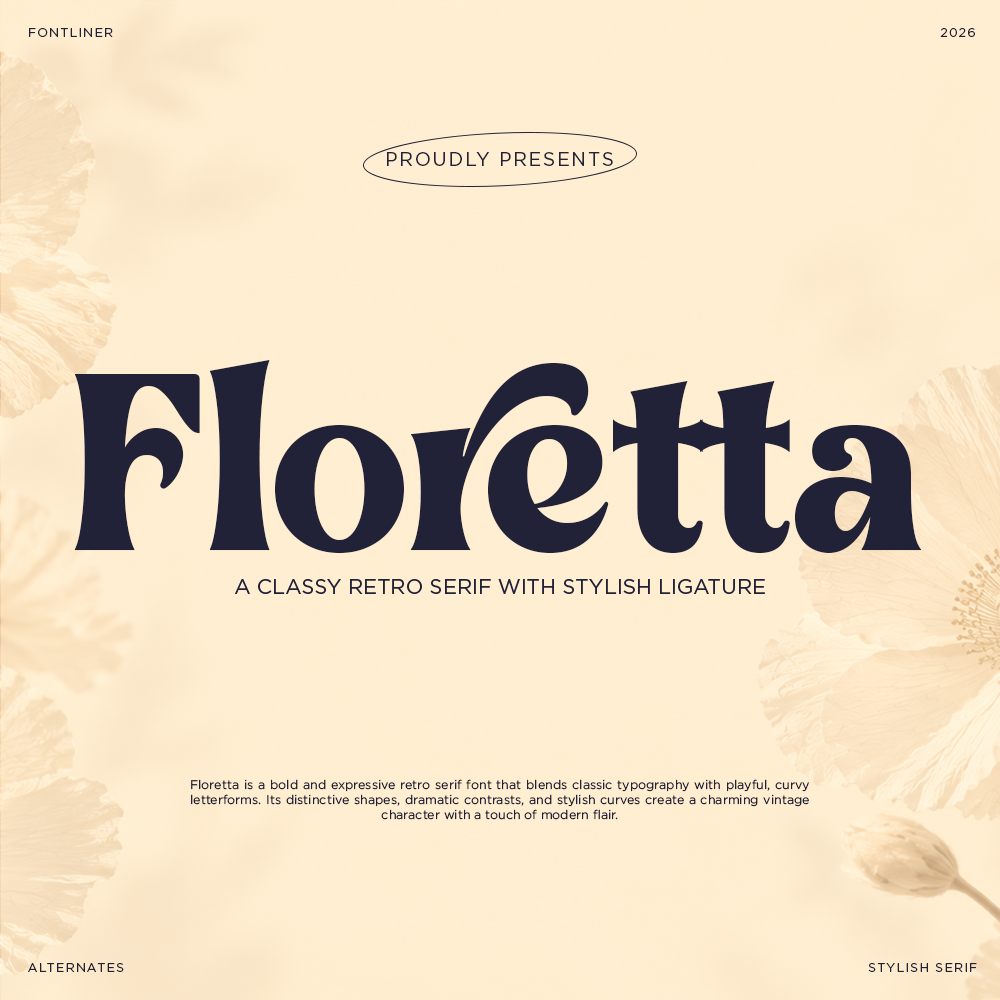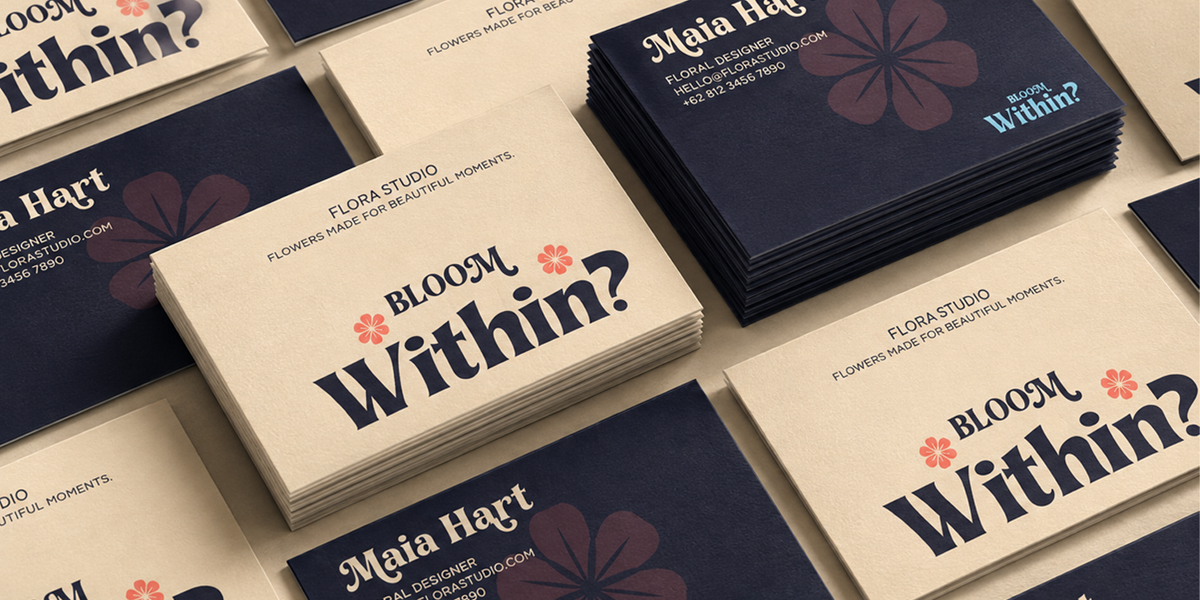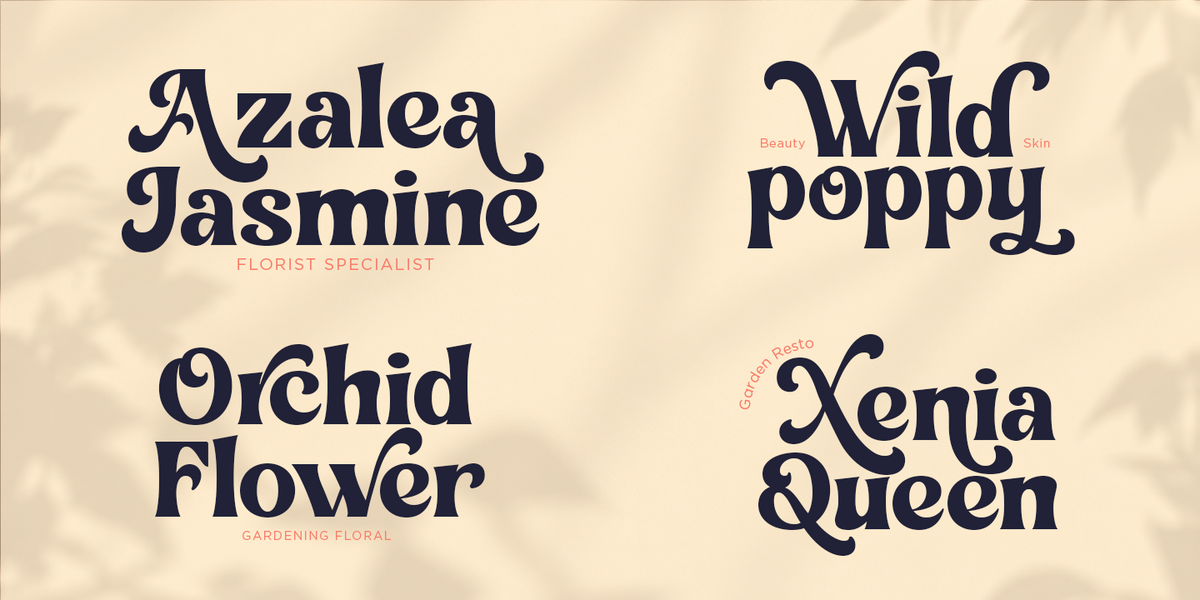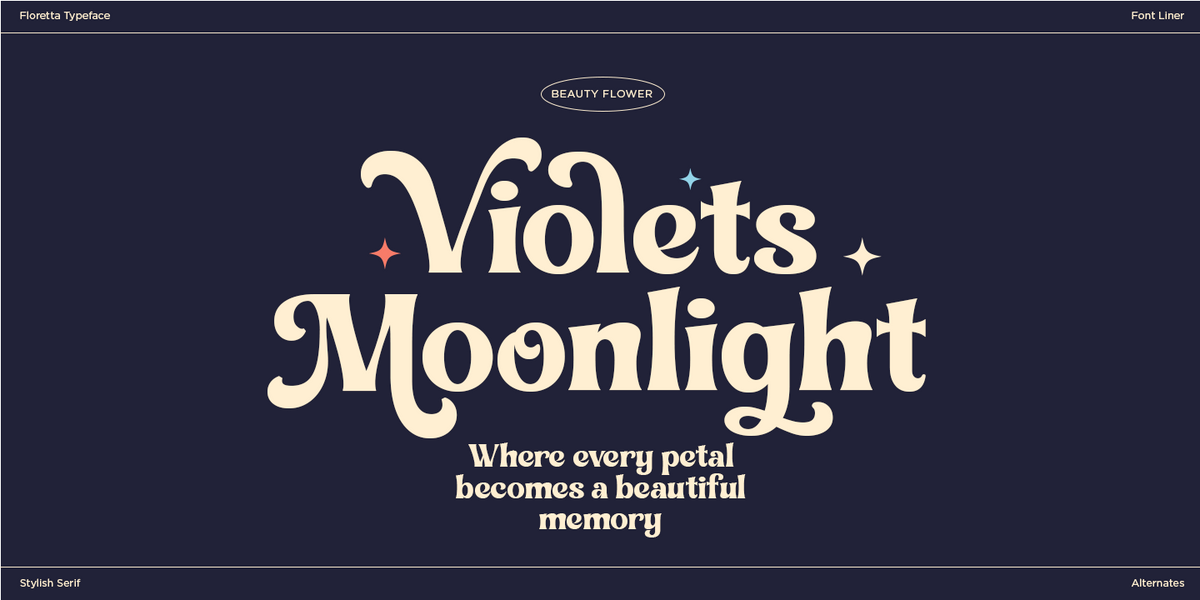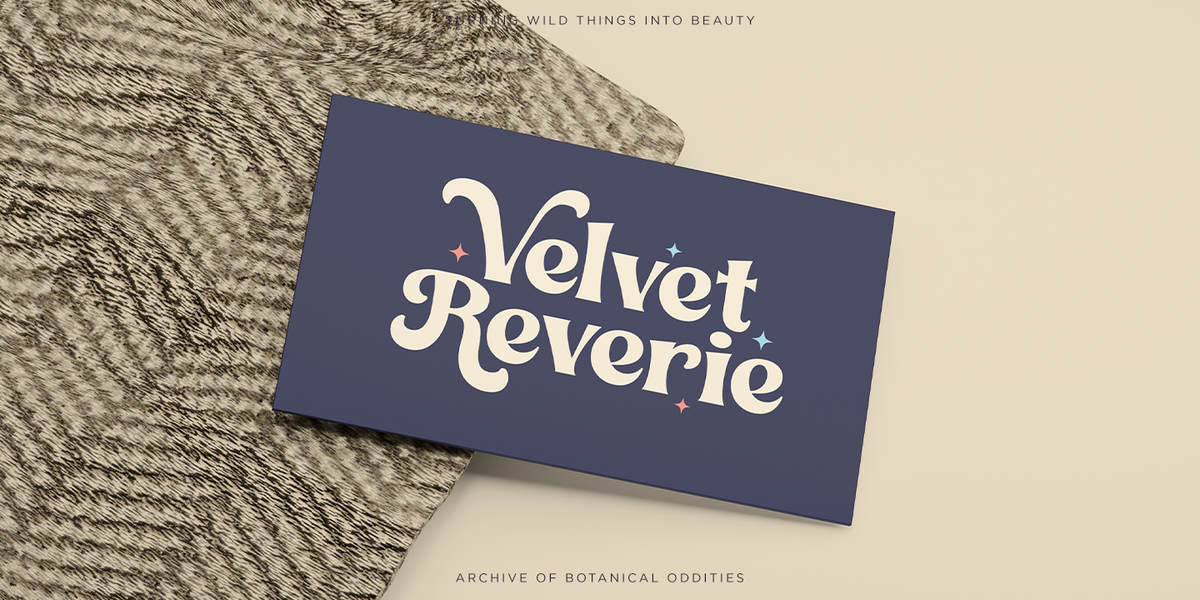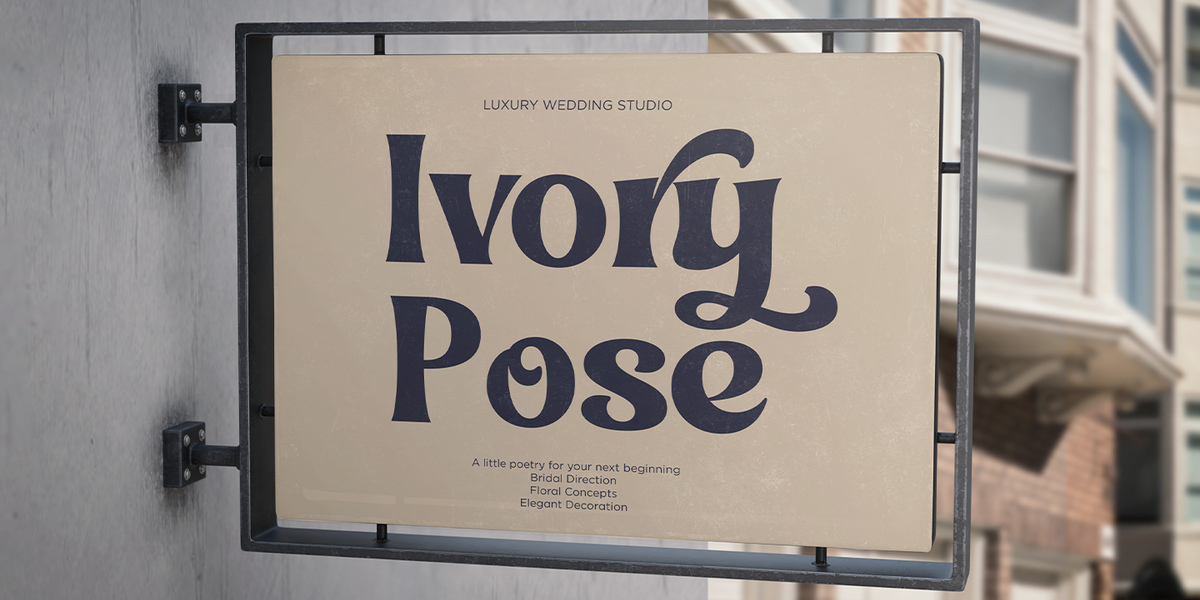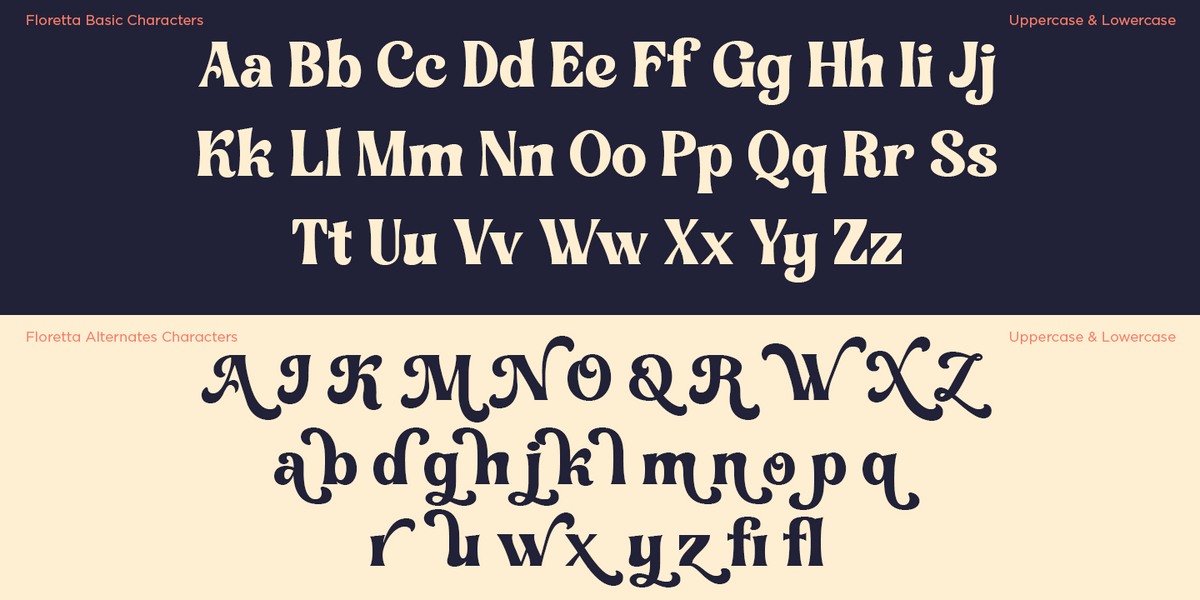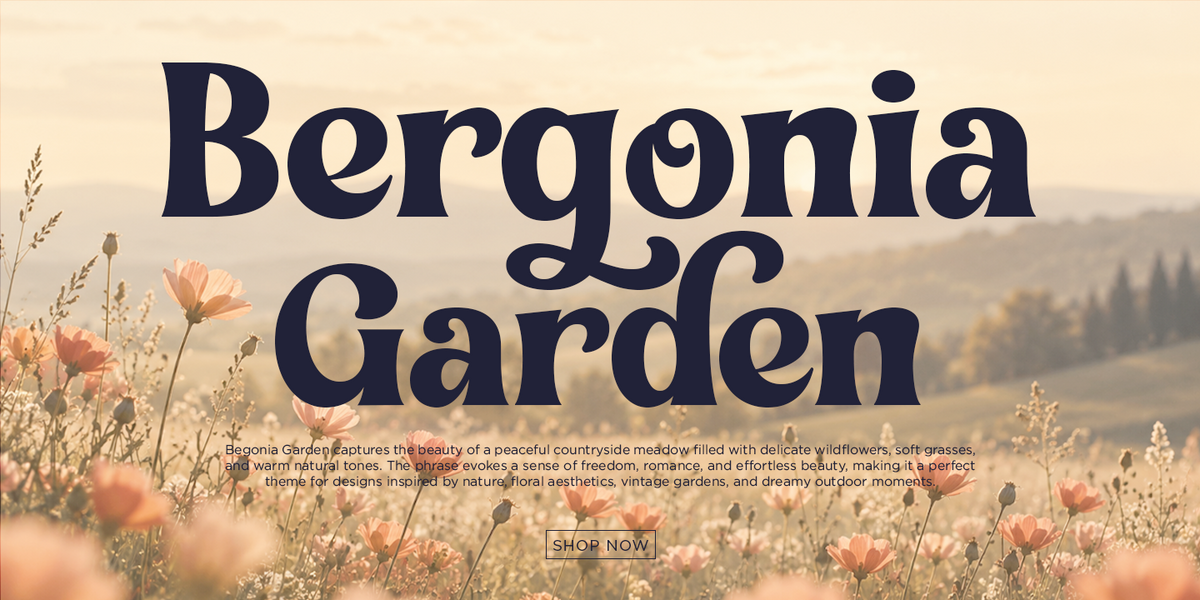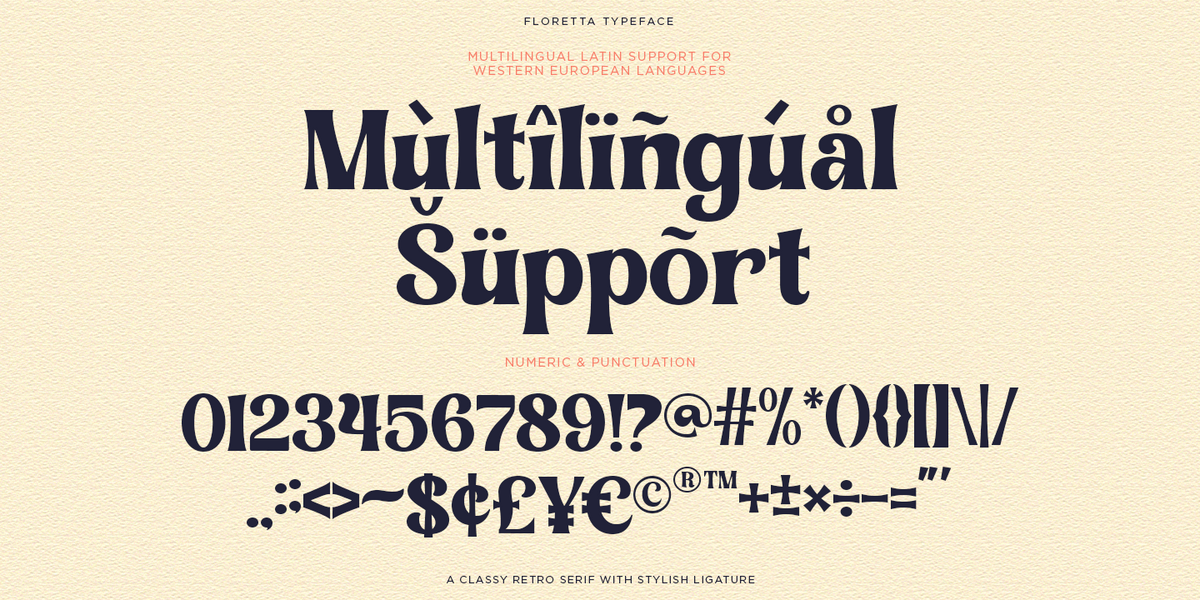
Floretta - Classy Retro Serif Font
Floretta is a classy retro serif font that combines elegant vintage character with expressive and sophisticated letterforms. Its distinctive shapes, decorative details, and refined proportions create a luxurious typographic style that instantly elevates creative projects.
Perfect for fashion branding, beauty logos, wedding stationery, editorial layouts, packaging, boutique identities, invitations, posters, magazines, and social media designs. Floretta works beautifully for both elegant feminine concepts and nostalgic retro inspired aesthetics.
• Regular and Italic
• Special Alternates
• Stylistic Ligatures
• Uppercase and Lowercase
• Number, Symbols, and Punctuation
Floretta is a retro serif font featuring Regular and Italic styles, special alternates, stylistic ligatures, uppercase and lowercase letters, numbers, symbols, punctuation, and multilingual support. Files are provided in OTF, TTF, and WOFF formats.